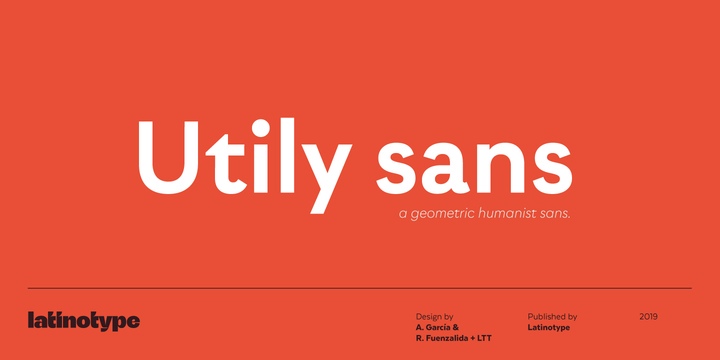
Utily Sans Font
Utily Sans Font is perfect for utility company branding, infrastructure service logos, municipal government signage, public service announcements, engineering firm identity, construction company materials, industrial equipment packaging, public transportation graphics, city planning documents, essential services campaigns, civic organization communications, and functional storytelling applications.
Utily Sans Font is exciting because it embodies reliability and functional excellence with clean, purposeful letterforms that communicate trustworthiness and efficiency, perfectly capturing the essential nature of utility services that form the backbone of modern society while maintaining the clarity and accessibility needed for public communication.
The Utily Sans Font family includes functional variations: Thin, Light, Regular, Medium, Bold, Black, and matching Italic styles, providing designers with a complete utility typography system to create dependable compositions that serve the public good and communicate essential information with clarity.
The font's purposefully crafted letterforms reflect the systematic precision and unwavering reliability that define essential public services, with clean geometry and optimized proportions that ensure outstanding legibility across all public communication applications while maintaining the professional authority citizens expect from vital services.
Utily Sans Font excels in creating trustworthy brand experiences for organizations serving the public interest, utility companies, and civic institutions. Its dependable presence transforms routine communications into clear public information that resonates with citizens seeking reliable, efficient, and transparent public services.
Professional designers appreciate how Utily Sans Font maintains its utilitarian character while providing exceptional functionality across diverse public service applications. The comprehensive weight range ensures optimal performance from intimate service notifications to massive public infrastructure signage, maintaining consistent reliability and civic authority.
This remarkable typeface brings instant public trust to utility ventures and civic organizations. From municipal departments to infrastructure companies, Utily Sans Font creates lasting impressions that communicate competence, transparency, and the essential reliability that citizens depend on for modern life's basic necessities.